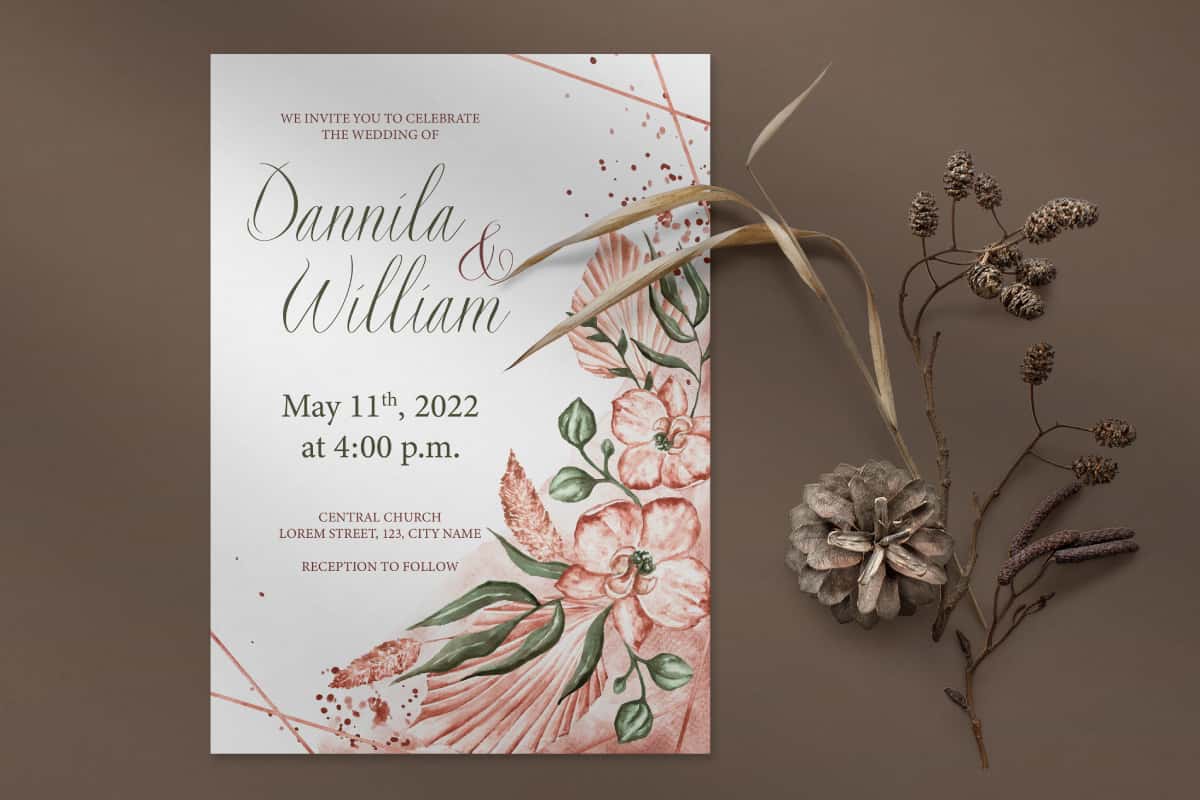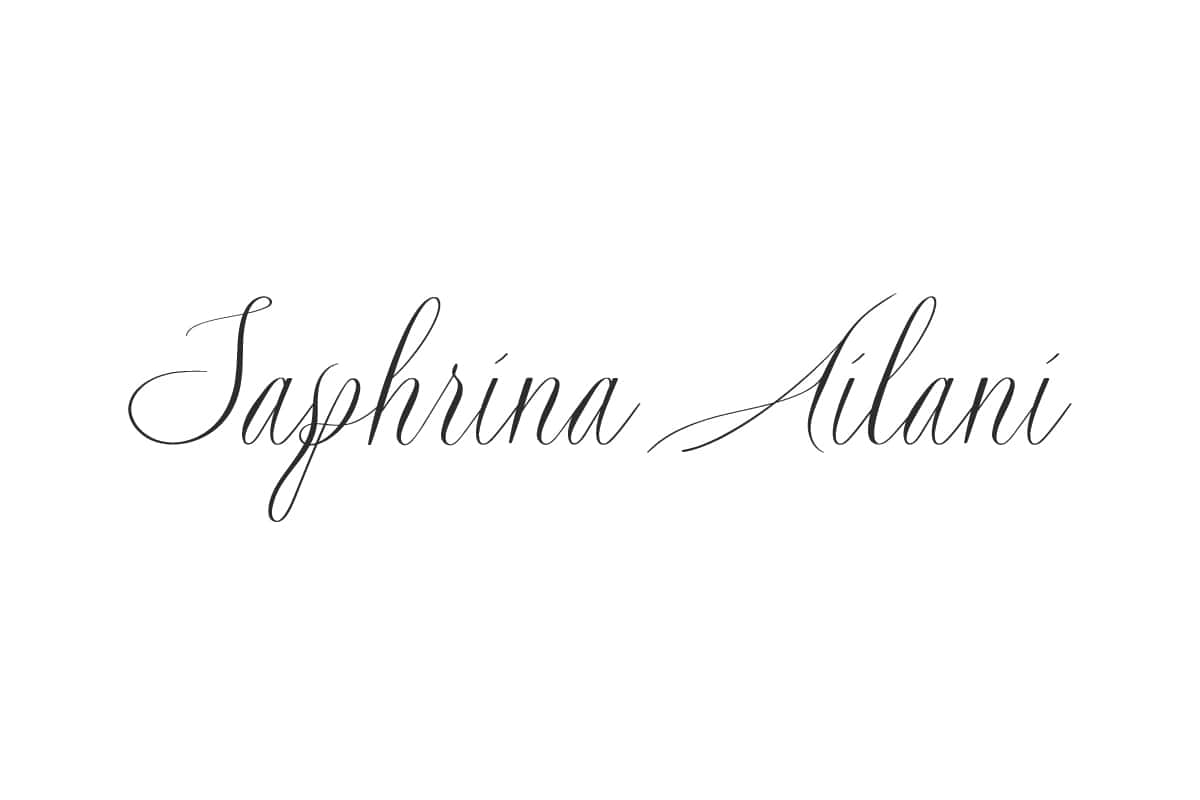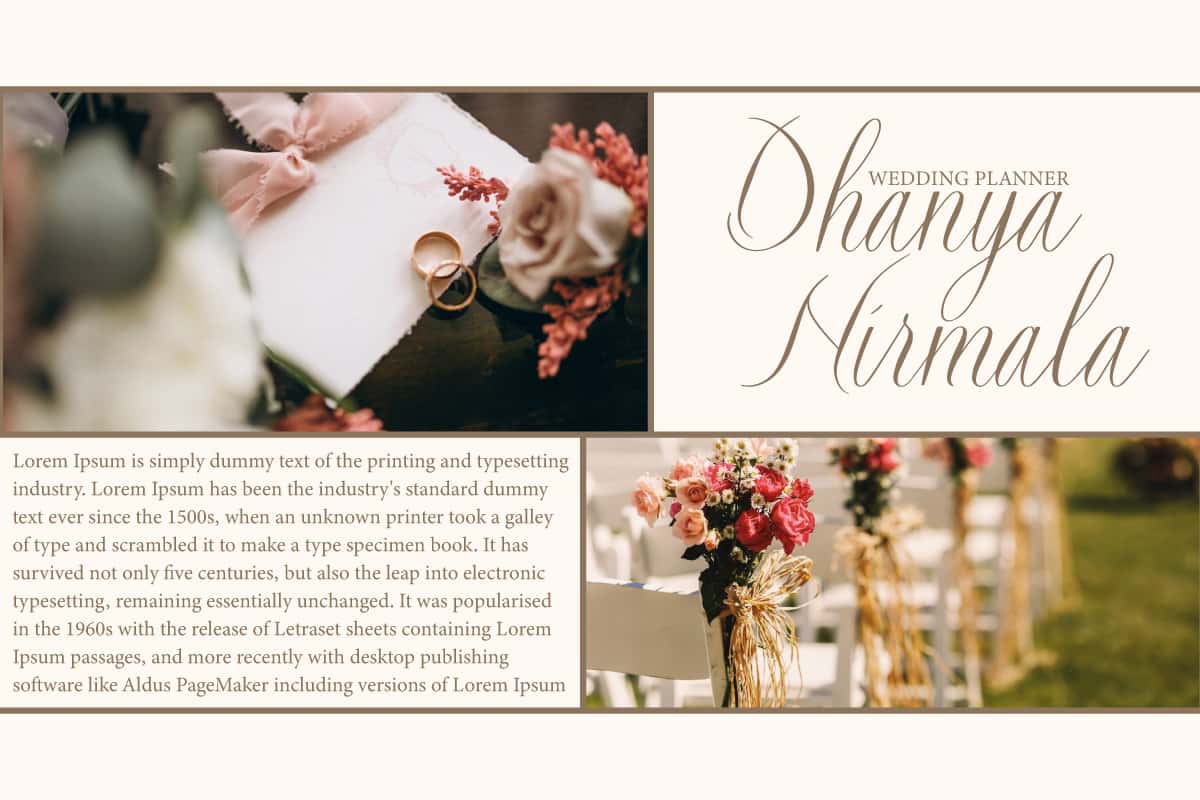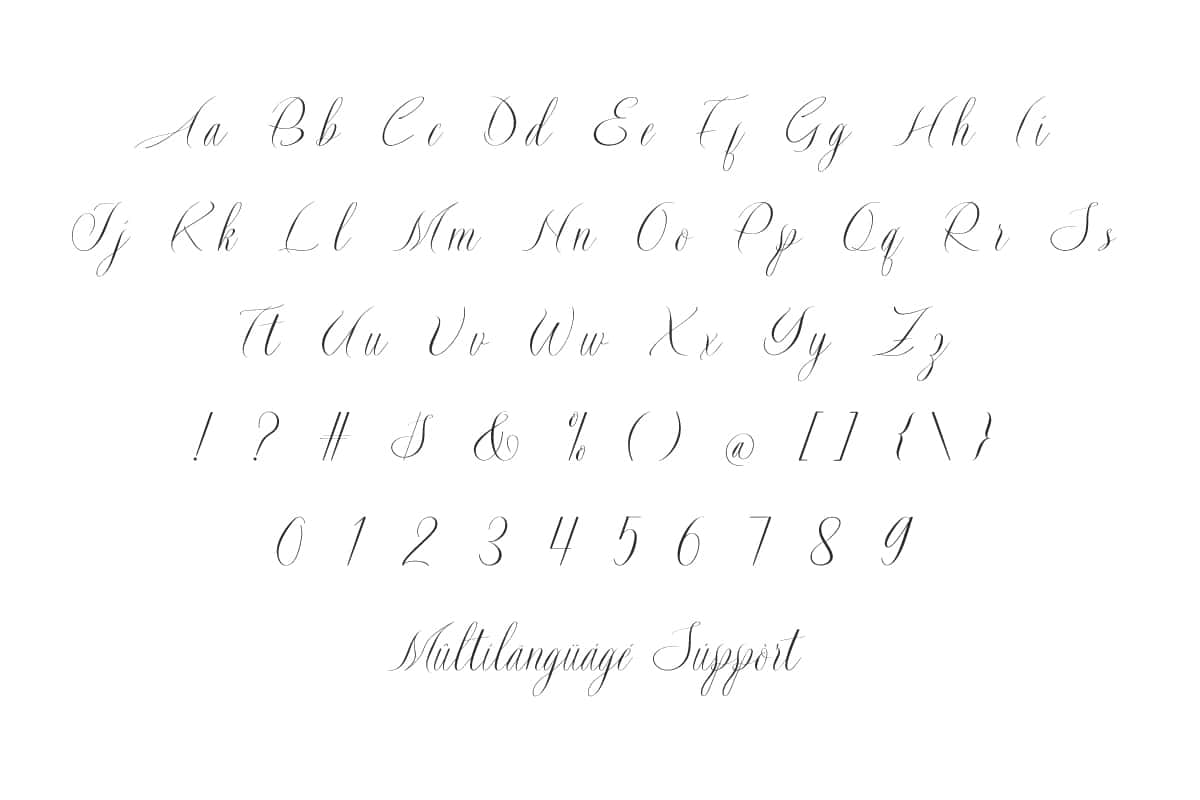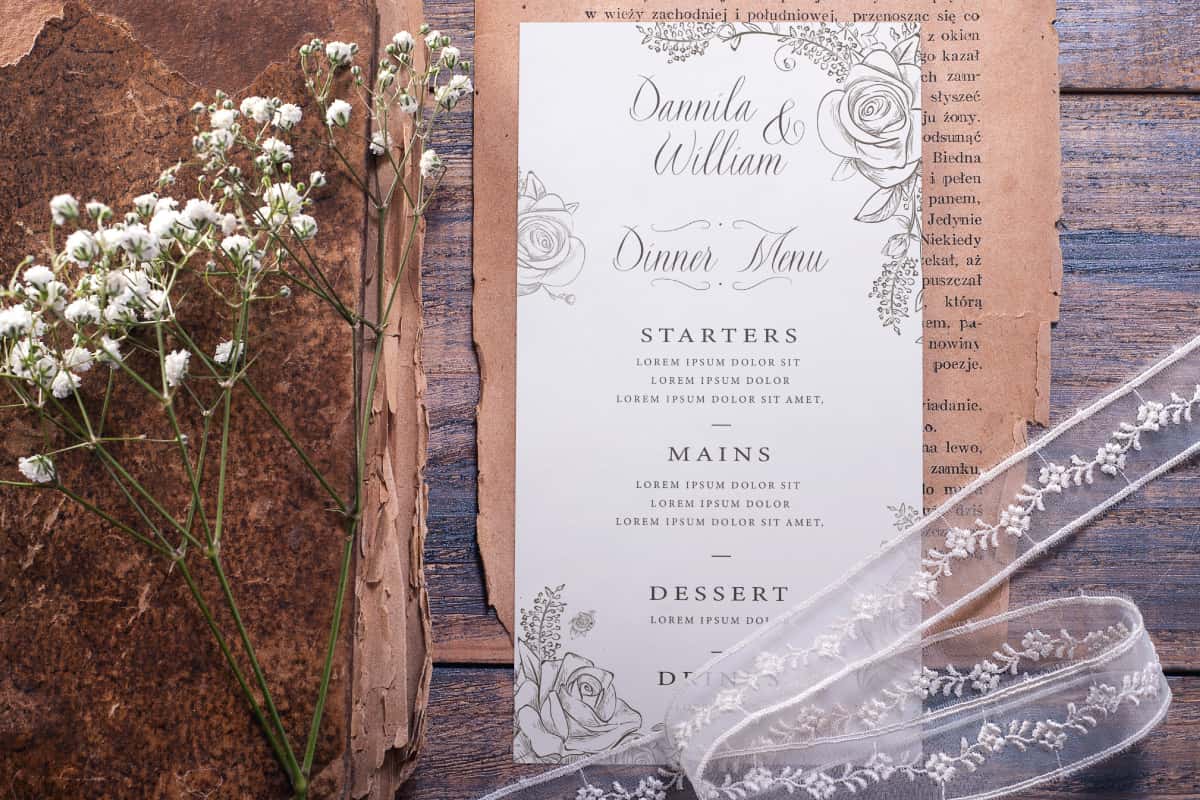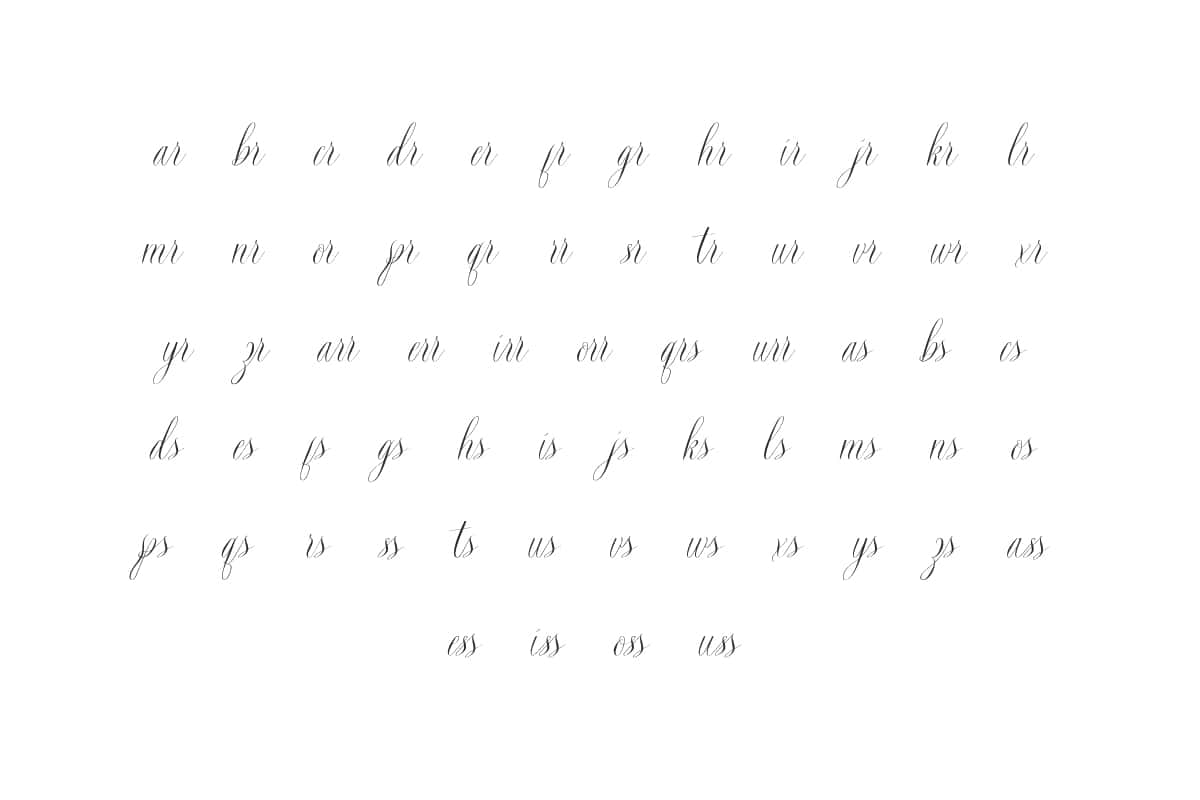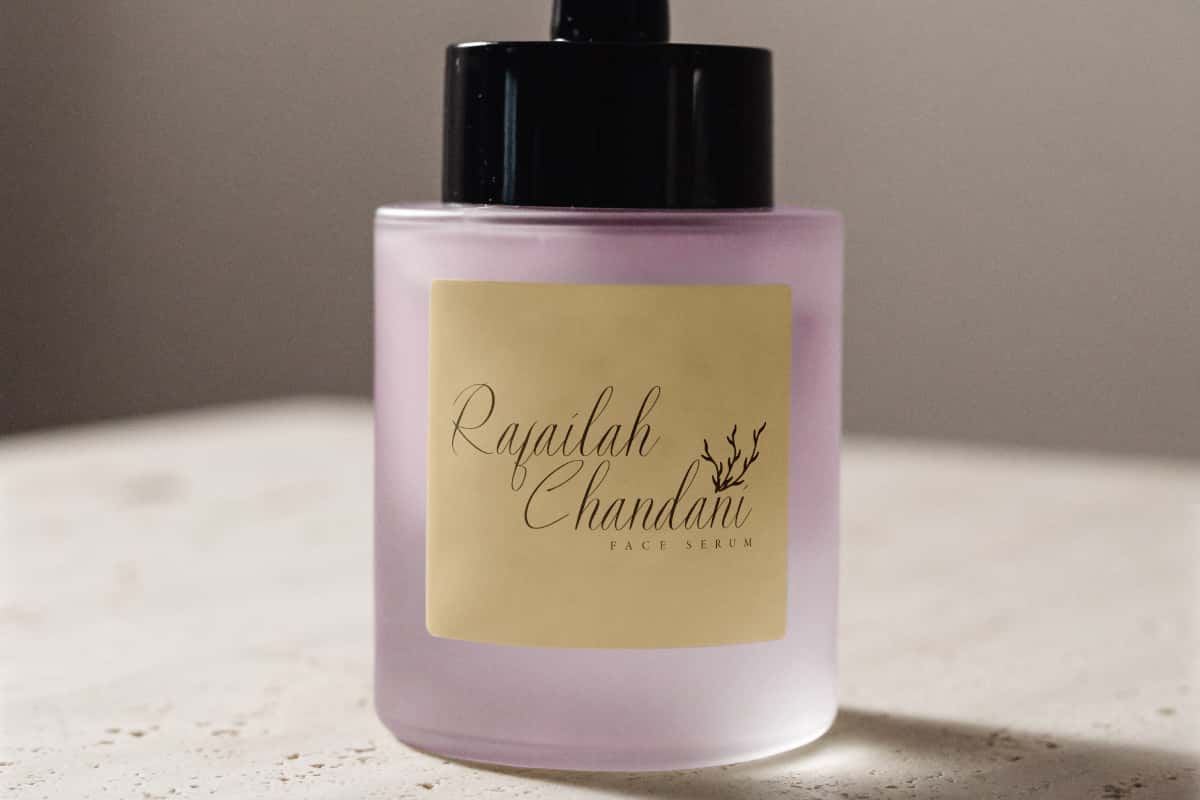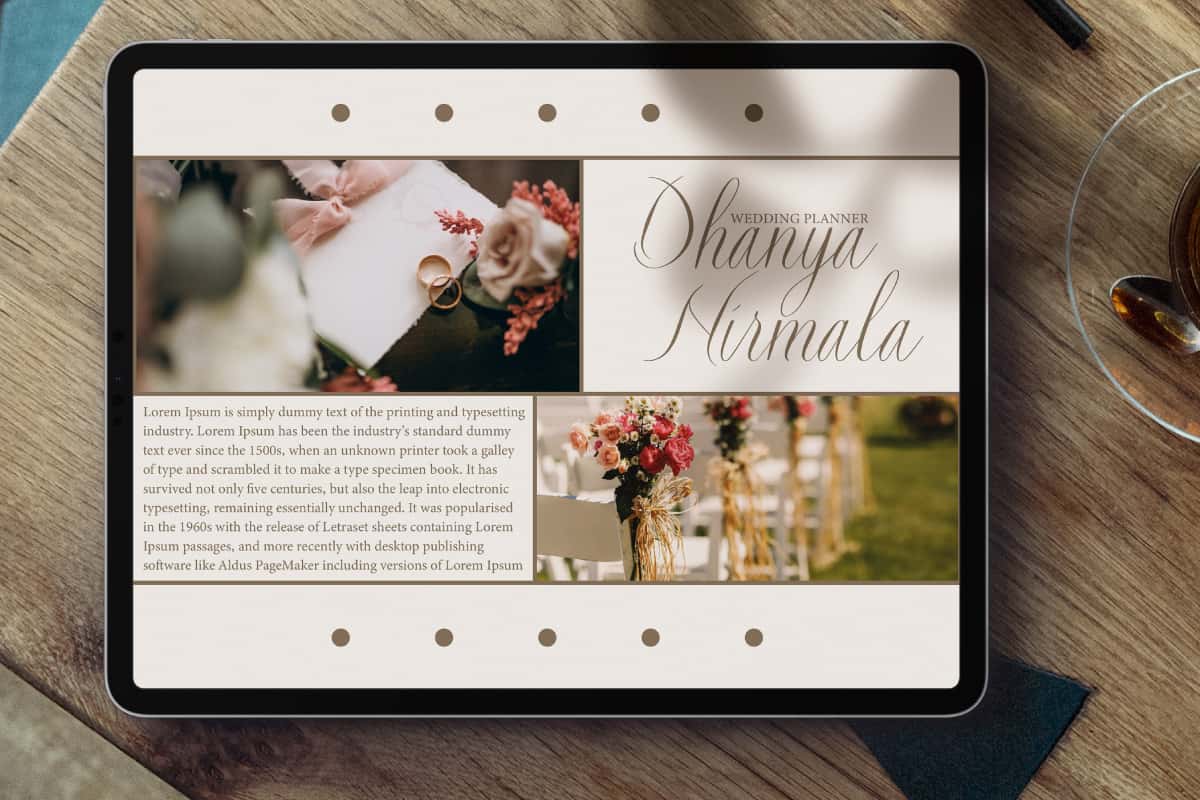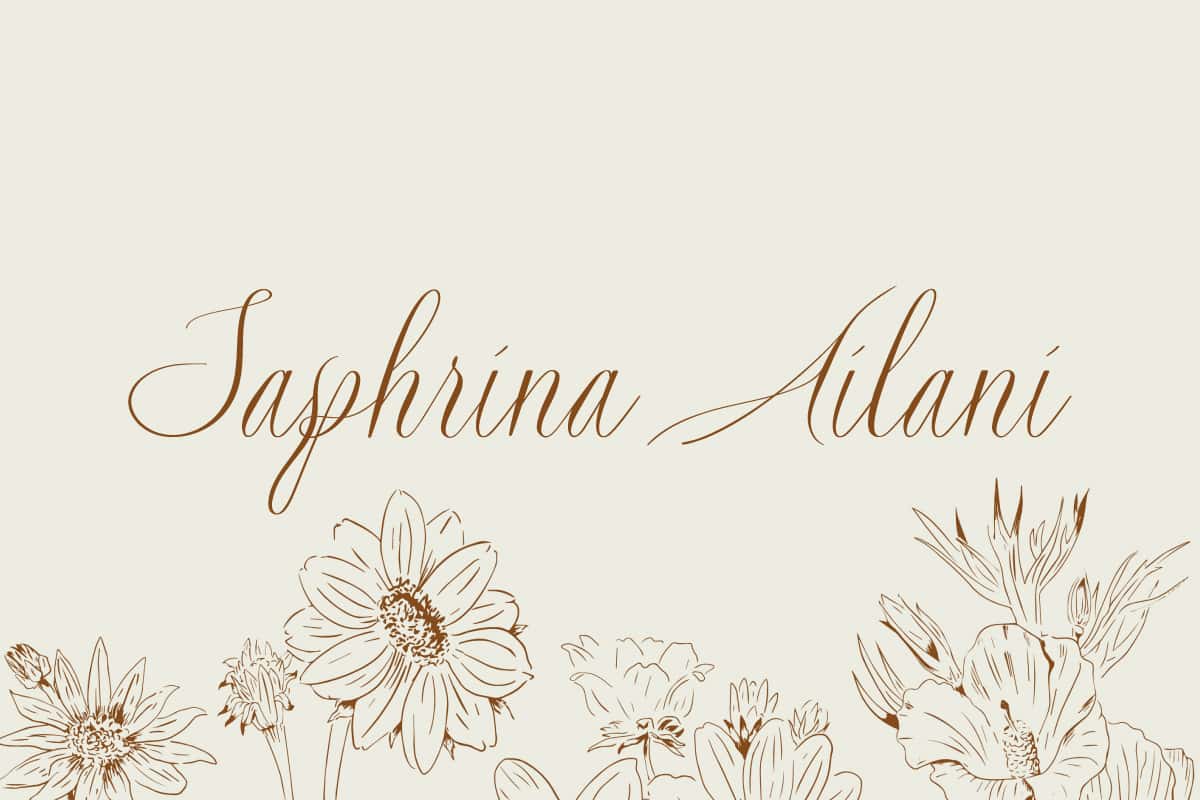
Saphrina Ailani Font is a beautiful and romantic calligraphy handwriting. Made with all my heart to convey a deep and sincere meaning.
Saphrina Ailani Font is a beautiful and refined calligraphy script. With flowing curves and charming details, it allows you to create truly graceful and flawless typography. Perfect for apps, banners, blogs, brand logo, covers, greeting cards, headers, invitation, mockup, product label, stationery, template, title, website, and more.
Saphrina Ailani Font includes a complete set of Basic Uppercase and Lowercase Characters, Numbers, Punctuation Marks, Symbols, and a perfect harmonious blend for Ligature characters. It is perfect for providing seamless customization to suit any design vision that desires a classy and timeless look, making it useful for boutique, florist, photography, skincare, wedding organizer, etc.